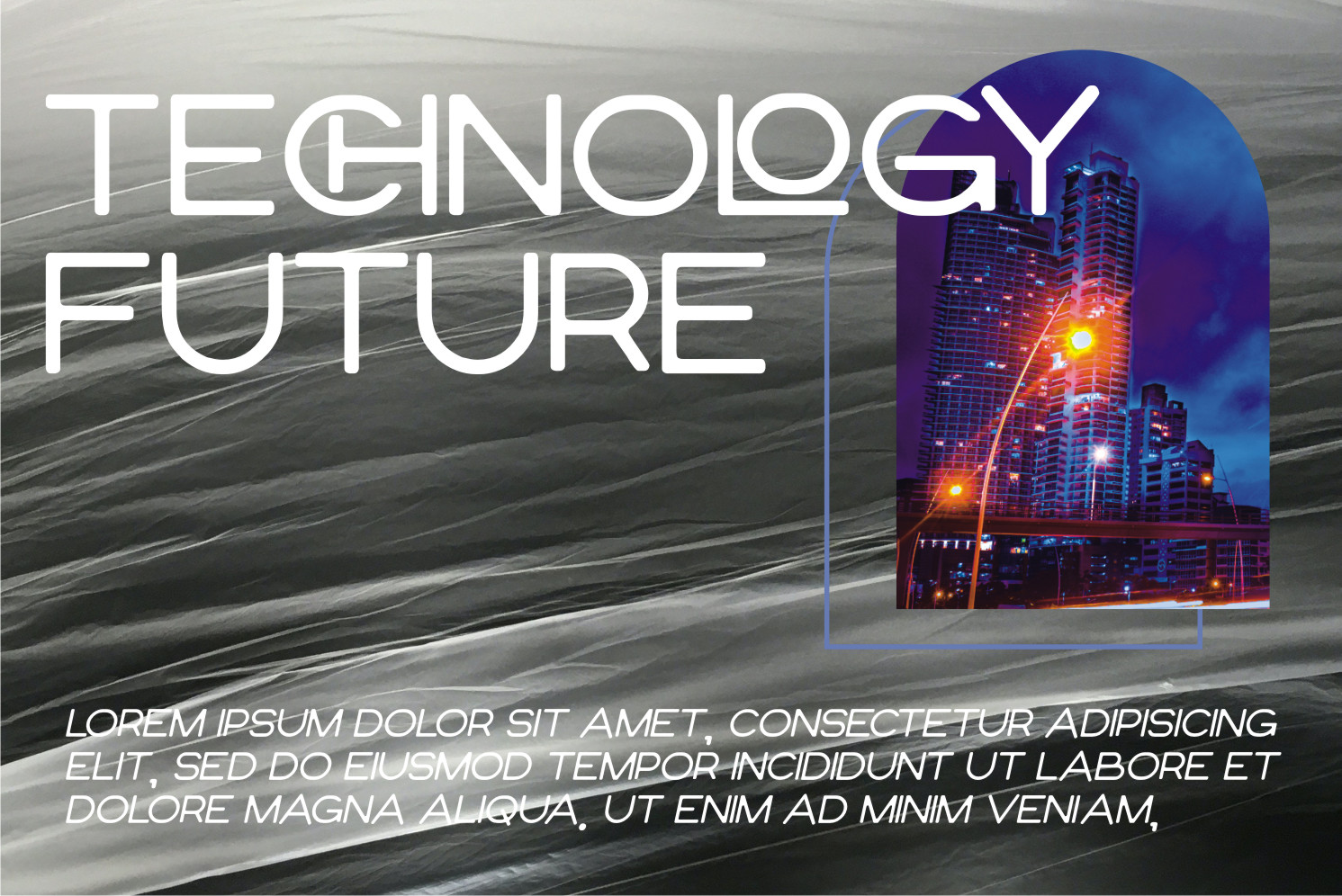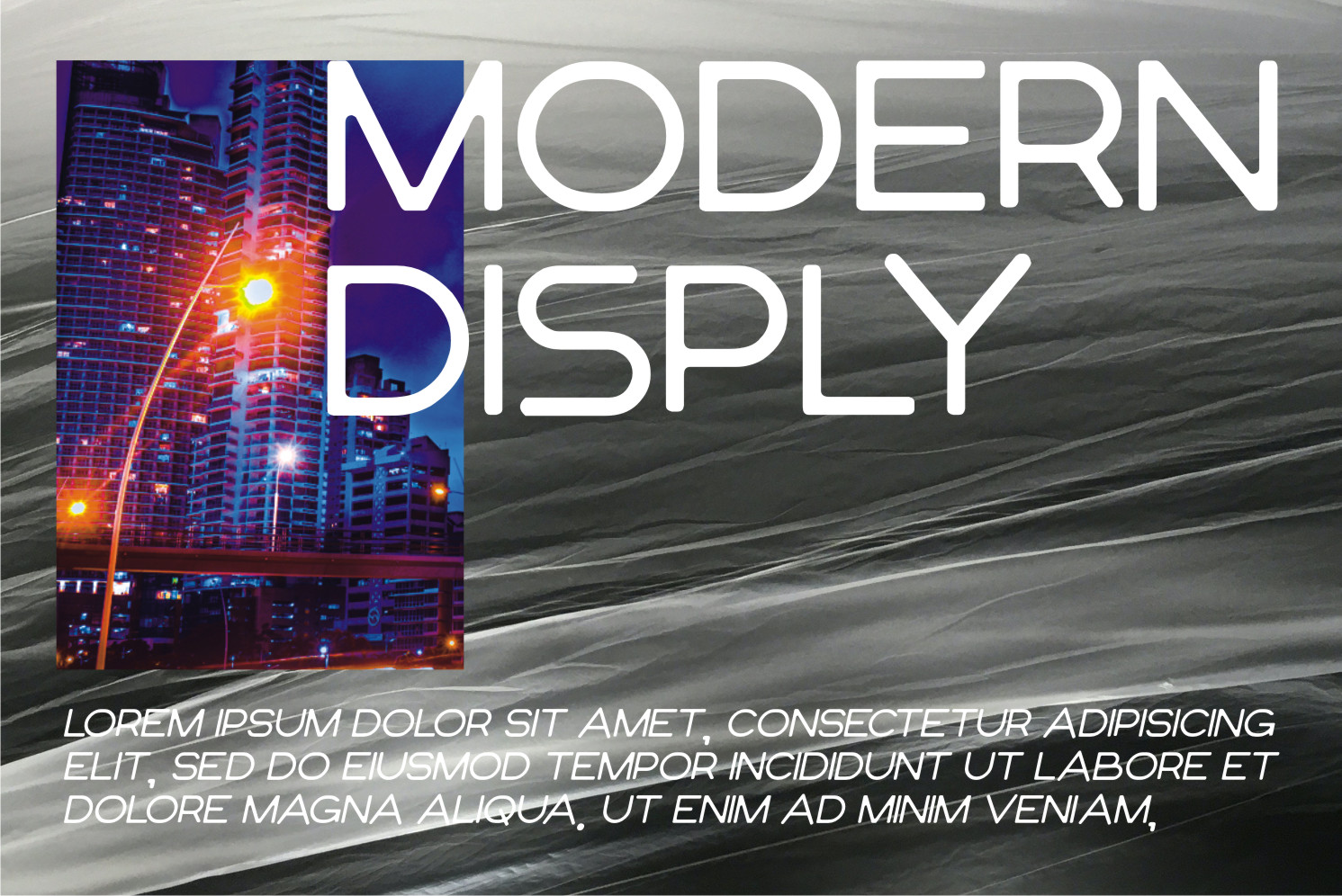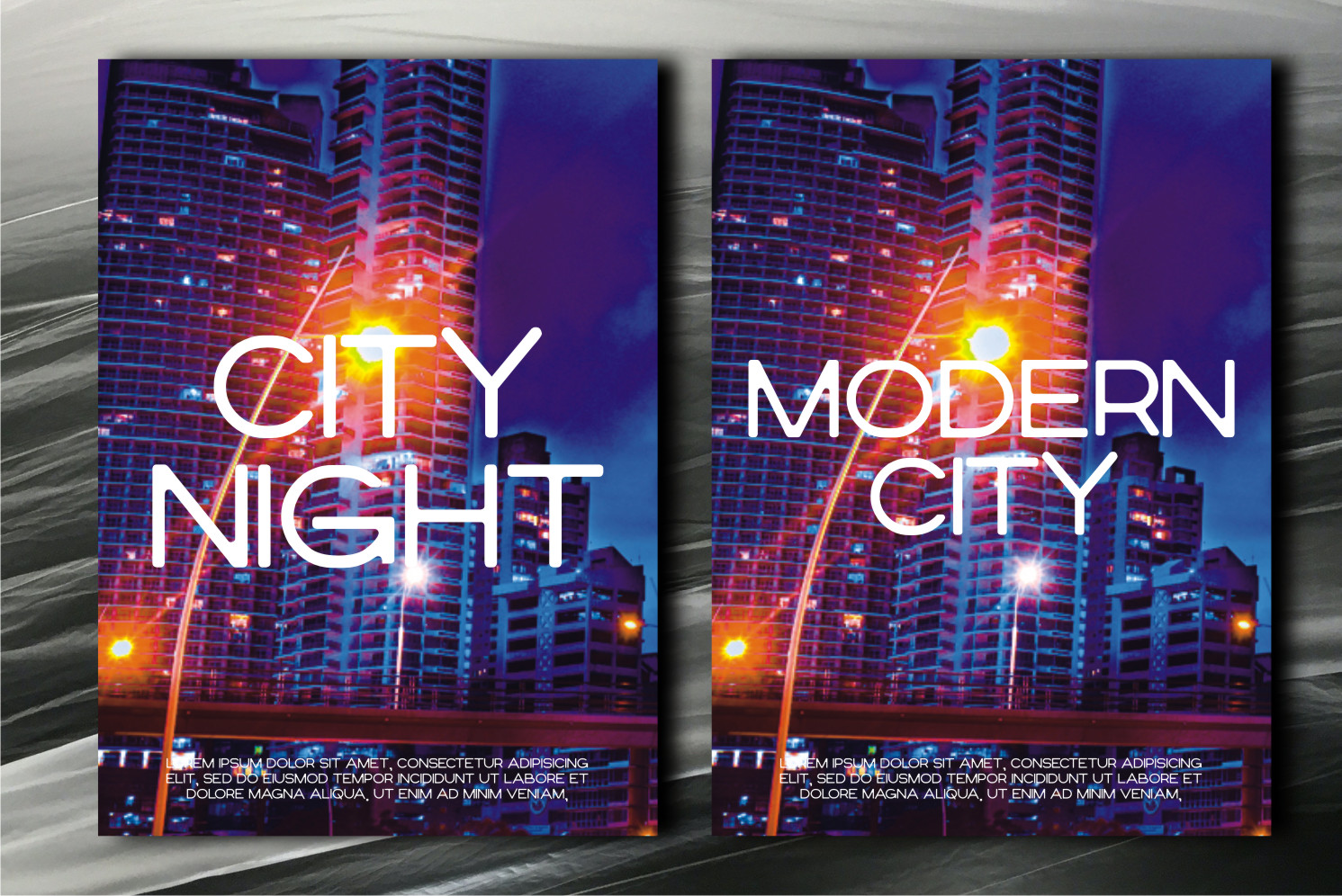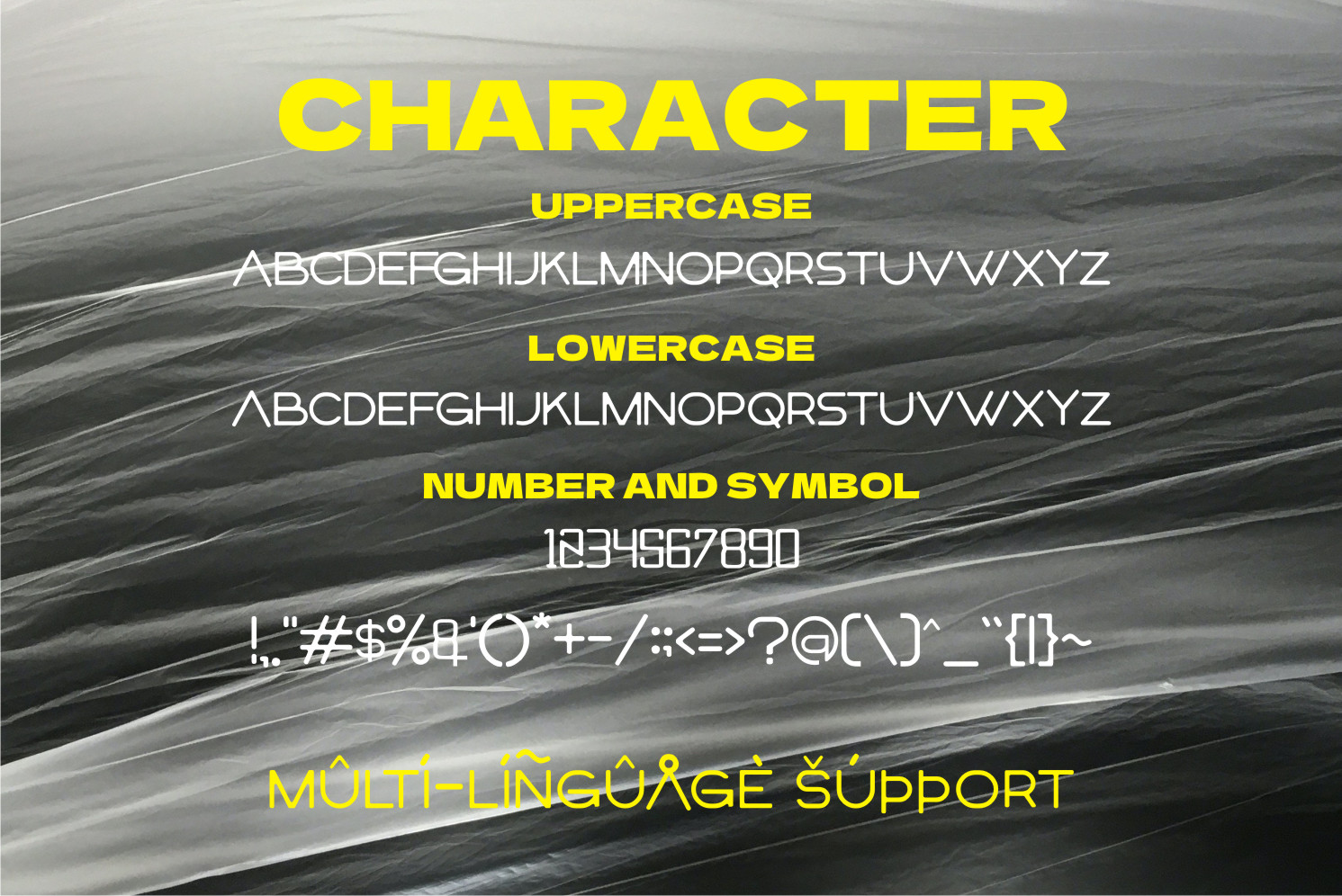
Elltoch Font
Elltoch Display Font
It’s a modern and cool display font. This font is ideal for writing web designs, business cards, or pretty much anything else that requires a futuristic, unique touch.